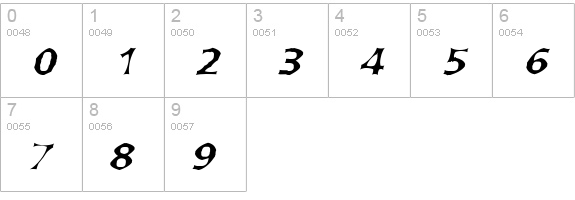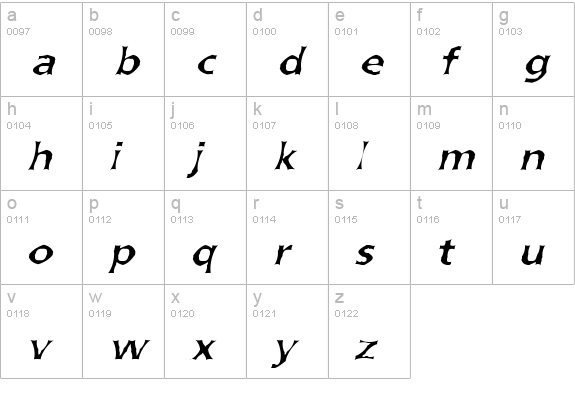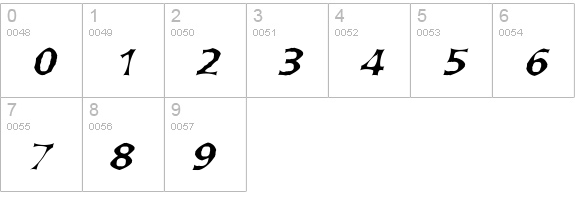
Arvada Font Details
Arvada font is a stunning typeface that effortlessly blends elegance with modernity. Its clean lines and sophisticated style make it perfect for a wide range of design projects, from branding to editorial design. The versatility of Arvada font allows it to be used in both headlines and body text, ensuring a cohesive and polished look across all your designs. What sets Arvada font apart is not only its timeless appeal but also its availability as a free download at FontsMarket.com. This means that designers and creatives can easily access this beautiful font without any cost, making it an invaluable addition to their font library. Whether you're working on a sleek corporate identity or a stylish editorial layout, Arvada font is sure to elevate your design to the next level. Download it for free today and see the magic it brings to your projects!